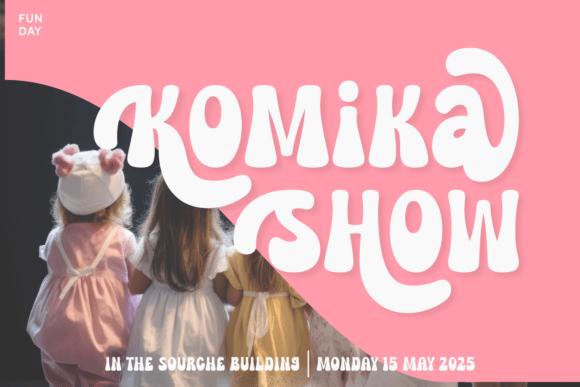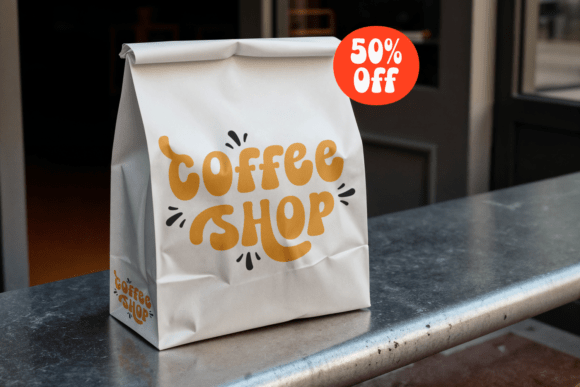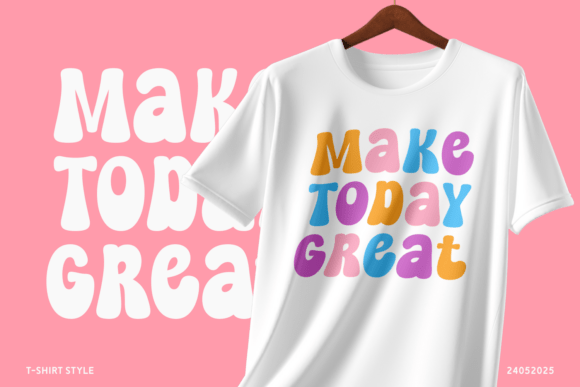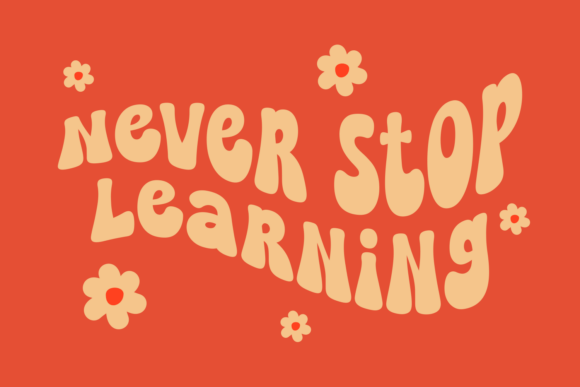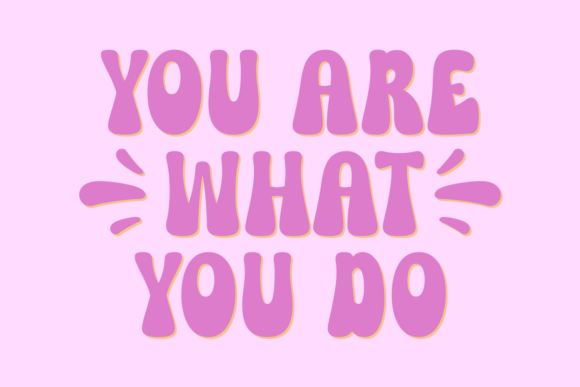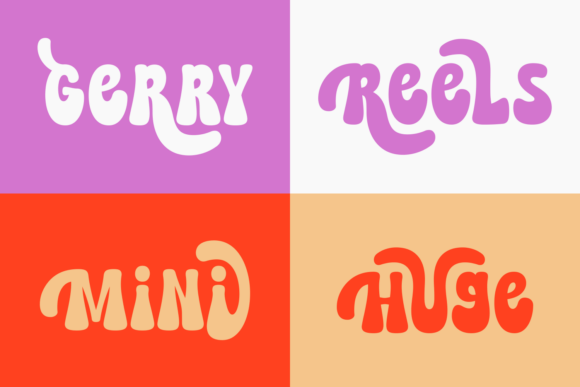
Introducing Bloom Retros Font: The Ultimate Retro-Groovy Design Companion
In the realm of typography, few fonts manage to capture the essence of retro and groovy aesthetics as effortlessly as Bloom Retros. This unique font is a game-changer for designers and crafters looking to infuse their projects with a dash of creativity, fun, and modern charm. With its cute, soft, and sweet appeal, Bloom Retros is more than just a font – it’s an art form, a time machine, and an imaginative outlet all rolled into one.
The Allure of Bloom Retros
Bloom Retros boasts a distinctive blend of retro and groovy elements that instantly elevate any text into a creative masterpiece. Its unique charm lies in its ability to evoke a sense of delight while staying fresh and modern. Whether you’re working on a design project, crafting a message, or simply looking to add some personality to your text, Bloom Retros is the perfect companion.
A Statement-Making Font
Bloom Retros is more than just a pretty font – it’s a statement-maker. Its presence in any design project adds an extra sprinkling of creativity and fun, making it perfect for designers and crafters who want to push the boundaries of their work. With Bloom Retros, you can turn any text into a visually appealing and engaging experience that captures the reader’s attention and fosters an emotional connection.
Seamless Creativity and Fun
One of the most significant advantages of Bloom Retros is its ability to seamlessly blend creativity and fun into any design project. Its retro-groovy aesthetic is not only visually appealing but also versatile, making it suitable for a wide range of applications, from branding and advertising to crafting and DIY projects.
Igniting Emotional Connections
Bloom Retros has a unique ability to ignite an emotional connection with the reader. When paired with the right message, this font fosters warmth, happiness, and an irresistible sense of intrigue. Whether you’re looking to create a brand identity, design a logo, or craft a compelling message, Bloom Retros provides the perfect foundation for building a lasting connection with your audience.
Serene Sophistication
Despite its playful and retro aesthetic, Bloom Retros exudes a sense of serene sophistication that’s hard to find in other fonts. Its soft and sweet curves, combined with its modern charm, make it an excellent choice for designers and crafters who want to add a touch of elegance to their work.
Bloom Retros is an excellent addition to any designer’s or crafter’s toolkit. Its versatility, creativity, and fun aesthetic make it perfect for a wide range of projects, from digital designs to handmade crafts. Whether you’re a seasoned professional or just starting out, Bloom Retros provides the perfect opportunity to experiment with new ideas and push the boundaries of your creativity.
In conclusion, Bloom Retros is a game-changing font that offers a unique blend of retro and groovy aesthetics. Its cute, soft, and sweet appeal makes it perfect for designers and crafters looking to add a touch of creativity, fun, and modern charm to their work. With its ability to ignite emotional connections, foster warmth and happiness, and exude serene sophistication, Bloom Retros is an excellent addition to any design project. So why wait? Experience the magic of Bloom Retros today and take your designs to the next level.